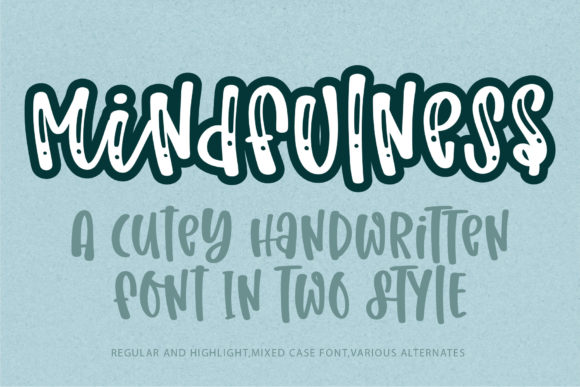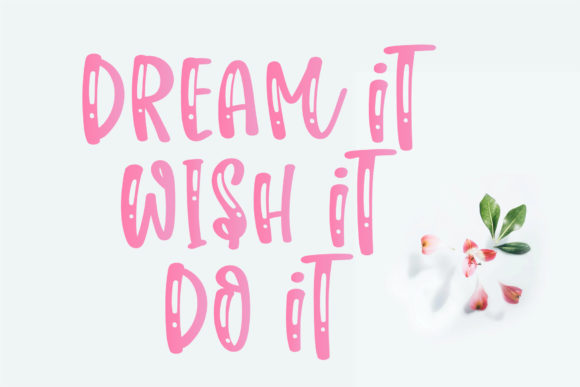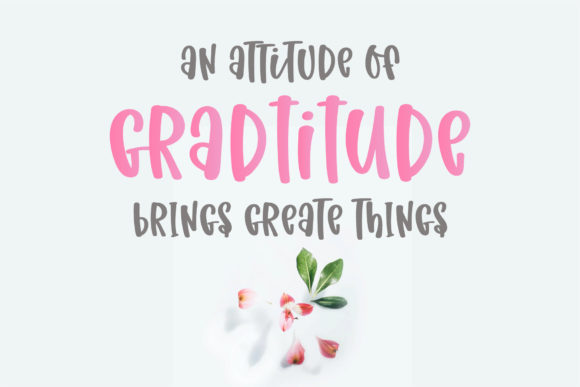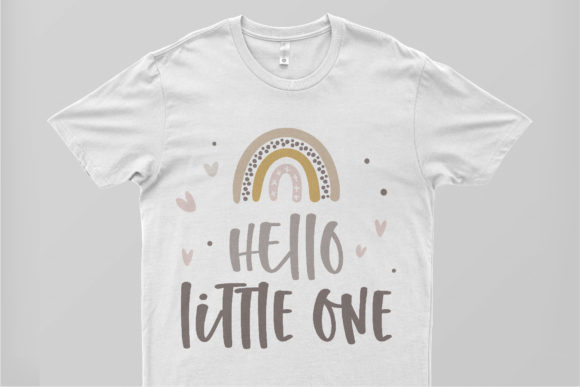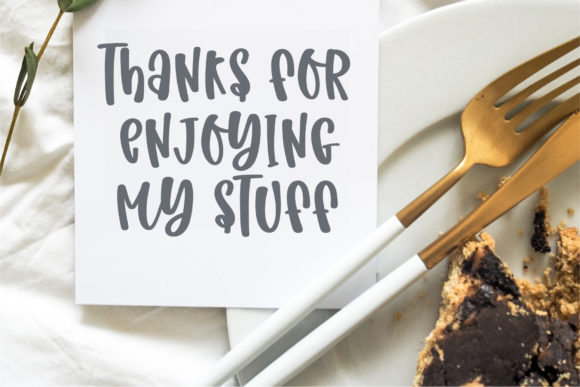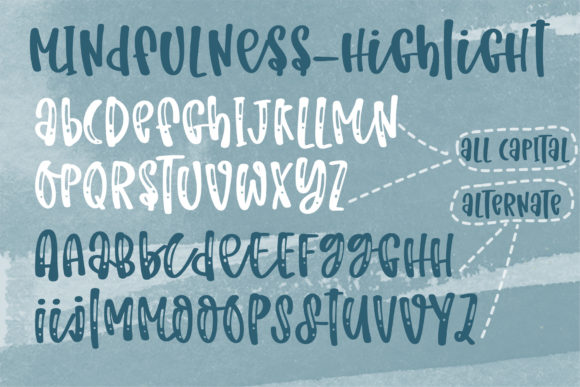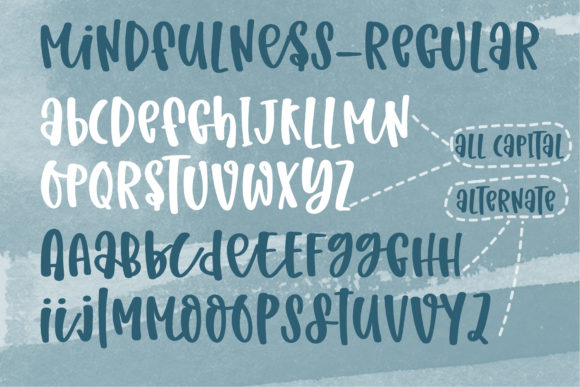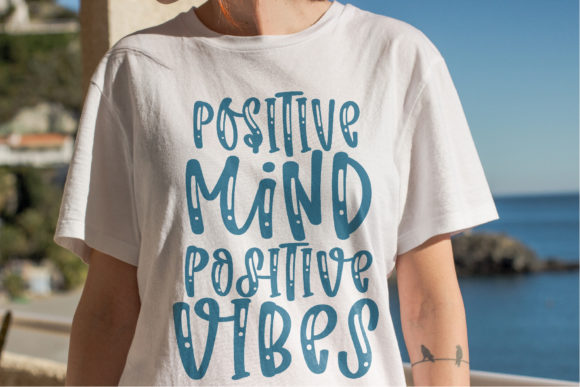
Mindfulness Font
About Mindfulness Font
Mindfulness is a cute, quirky, and relaxed handwritten font. This font is perfect for children-themed designs, especially when combined with bright colors. It is PUA encoded which means you can access all of the glyphs and swashes with ease!